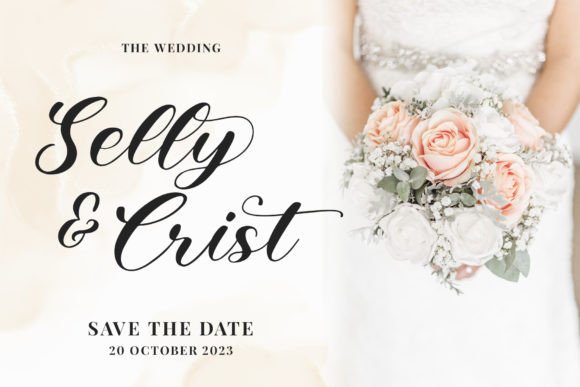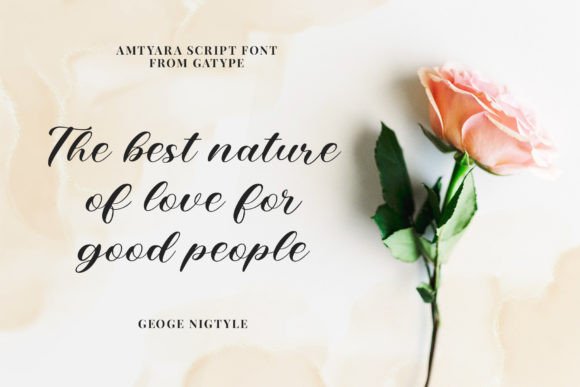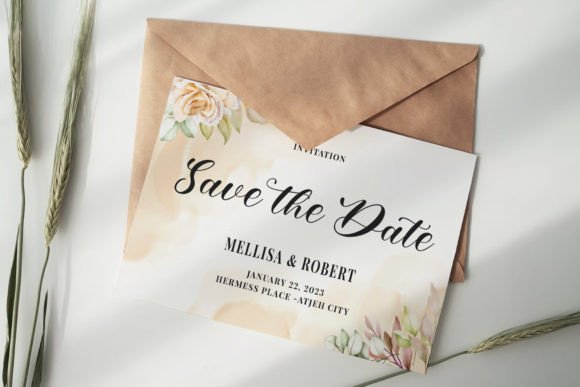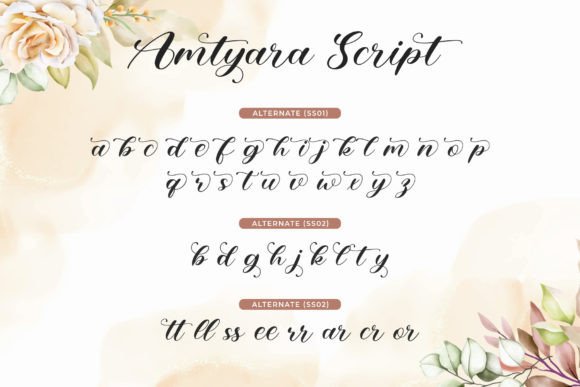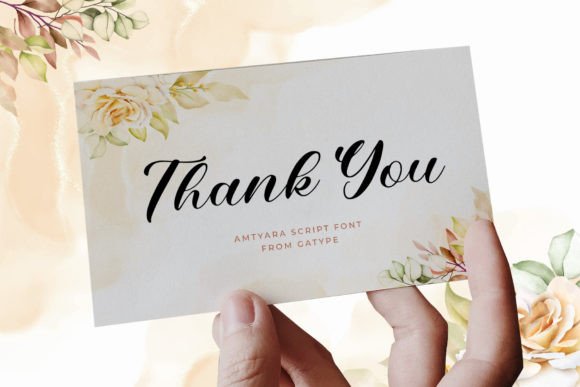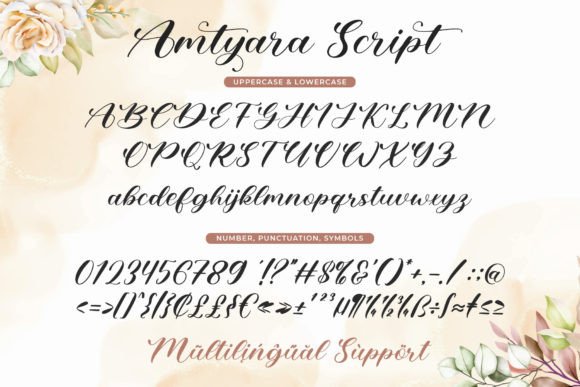
Amtyara Script Font
About Amtyara Script Font
Amtyara Script is a flowing handwritten font, described by an elegant touch, perfect for your favorite projects. Fall in love with its incredibly distinct and timeless style and use it to create spectacular designs! This font is PUA encoded which means you can access all the glyphs and ligatures with ease!